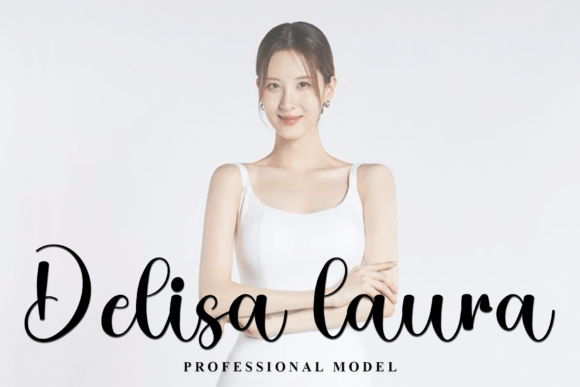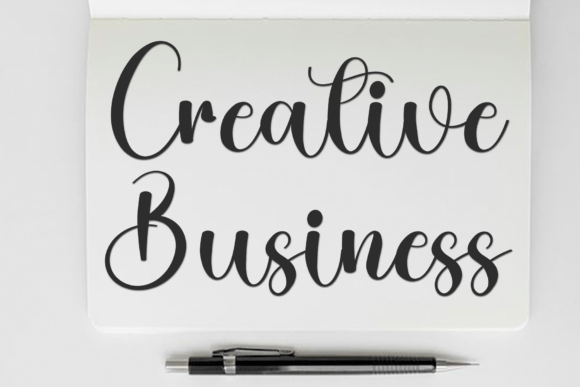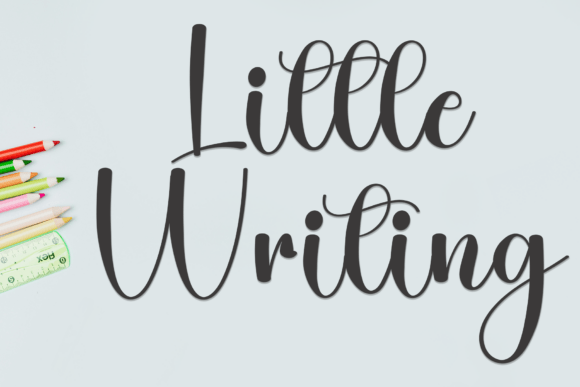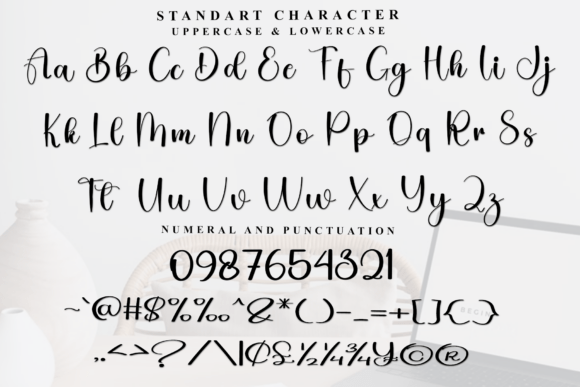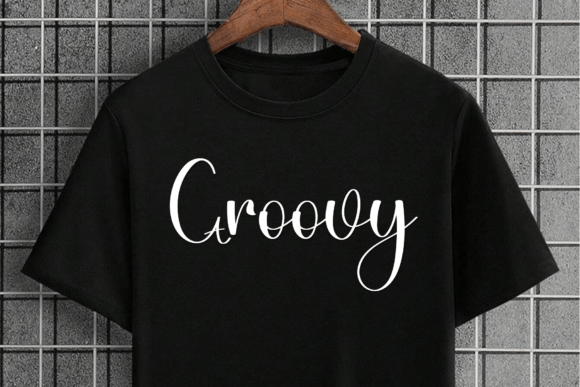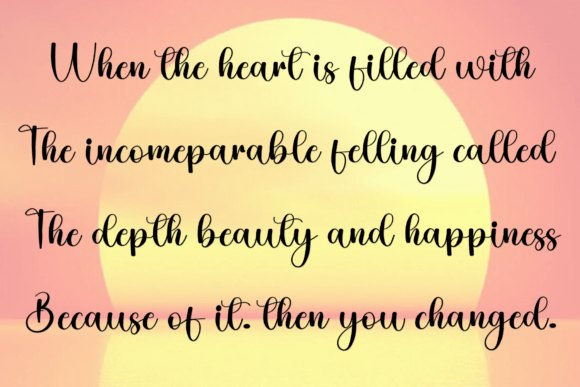
Introduction to Outside Magnolia Font
As the holiday season approaches, designers often find themselves in a creative frenzy, searching for the perfect font to bring their festive designs to life. It’s a moment of joy, when the perfect typography comes together, and your project starts to feel truly magical. For many, this moment of excitement comes with the discovery of the Outside Magnolia Font.
This enchanting typeface is more than just a design resource – it’s a key to unlocking the true spirit of the holiday season. With its high-quality, decorative elements and whimsical flair, the Outside Magnolia Font adds a touch of nostalgia and wonder to any creative project. Whether you’re working on greeting cards, gift tags, or holiday-themed designs, this font is sure to bring a smile to your face and a dash of magic to your words.
Key Features of Outside Magnolia Font
- High-quality design resource suitable for creative projects, offering a unique and elegant aesthetic.
- Unique characteristics include ornate details and subtle textures, adding depth and visual interest to designs.
- Perfect for use in logos, branding materials, and other design projects requiring a touch of sophistication and elegance.
Honest Review: Outside Magnolia Font
As a designer, I’m always on the lookout for high-quality design resources to elevate my creative projects. I recently came across the Outside Magnolia Font, and I’m excited to share my thoughts on it.
- ✨ Beautiful, elegant script style that’s perfect for invitations, wedding designs, and other special occasion projects.
- ✨ High-quality font that’s crisp and clear, even at larger sizes.
- ✨ Transparent background, making it easy to place over images or other design elements.
- ⚠️ Limited font weights and styles, which may not be ideal for more complex design projects.
- ⚠️ Not suitable for body text, as it’s more decorative in nature.
Overall, I’m impressed with the Outside Magnolia Font. It’s a beautiful, high-quality font that’s perfect for special occasion designs. While it may have some limitations, it’s a great addition to any designer’s toolkit, and it’s a free download to boot! If you’re looking for a elegant script font, I’d definitely recommend giving it a try.
Getting the Most Out of Outside Magnolia Font
For optimal results, use the Outside Magnolia Font in conjunction with other design elements, such as images and graphics. Experiment with different font sizes, colors, and styles to create a unique and eye-catching design.
Common Use Cases for Outside Magnolia Font
The Outside Magnolia Font is suitable for a variety of design projects, including logos, branding materials, and marketing materials. It is also a great choice for creating invitations, greeting cards, and other paper crafts.
Alternatives to Outside Magnolia Font
Pacifico is a high-quality, elegant script font perfect for creative projects that require a touch of sophistication. It’s ideal for wedding invitations, restaurant menus, and any design where a beautiful, handwritten look is desired.
Pacifico compares to Outside Magnolia Font in terms of its elegant and refined feel, but it has a more classic, timeless look. While Outside Magnolia Font is more modern and playful, Pacifico is better suited for designs that require a sense of tradition and luxury.
Great Vibes is a free download font that’s perfect for designers looking for a high-quality, modern script font. It’s ideal for creative projects that require a fun, energetic vibe, such as social media graphics, posters, and advertisements.
Great Vibes compares to Outside Magnolia Font in terms of its modern and playful feel, but it has a more carefree and casual tone. While Outside Magnolia Font is more versatile and can be used for a wide range of designs, Great Vibes is better suited for projects that require a fun and lively atmosphere.